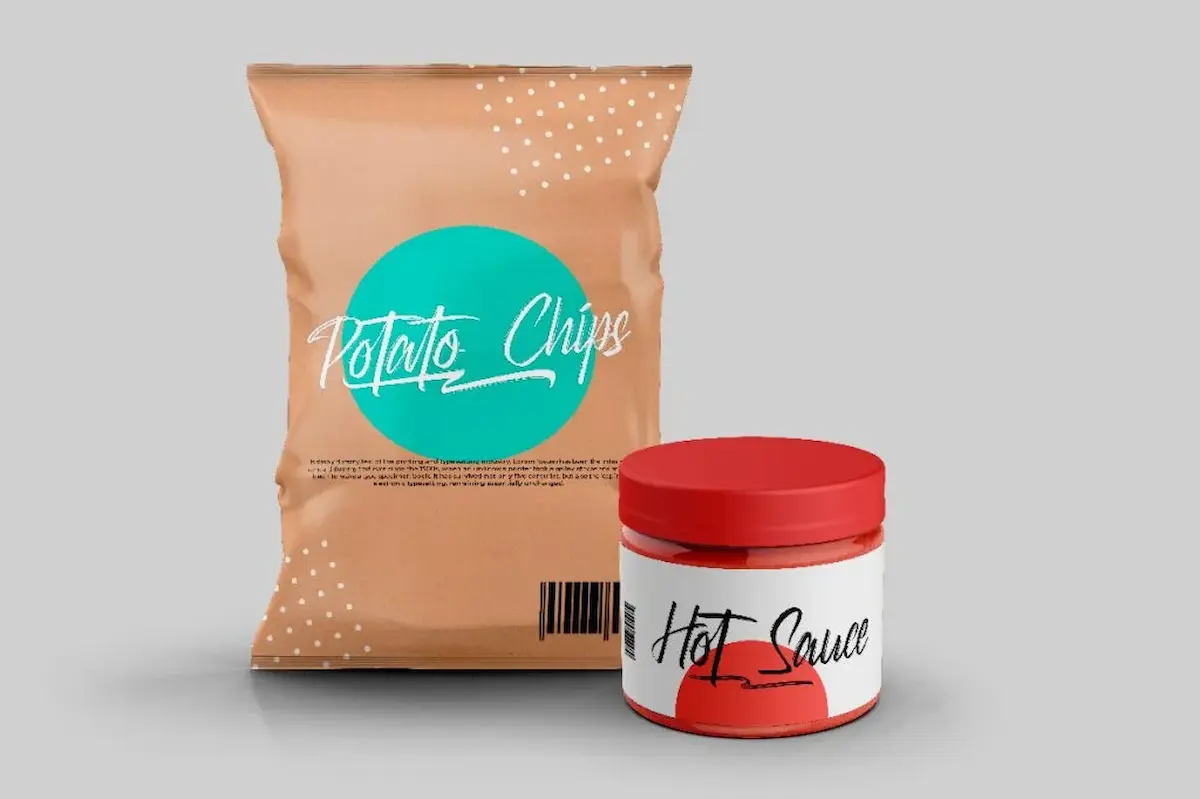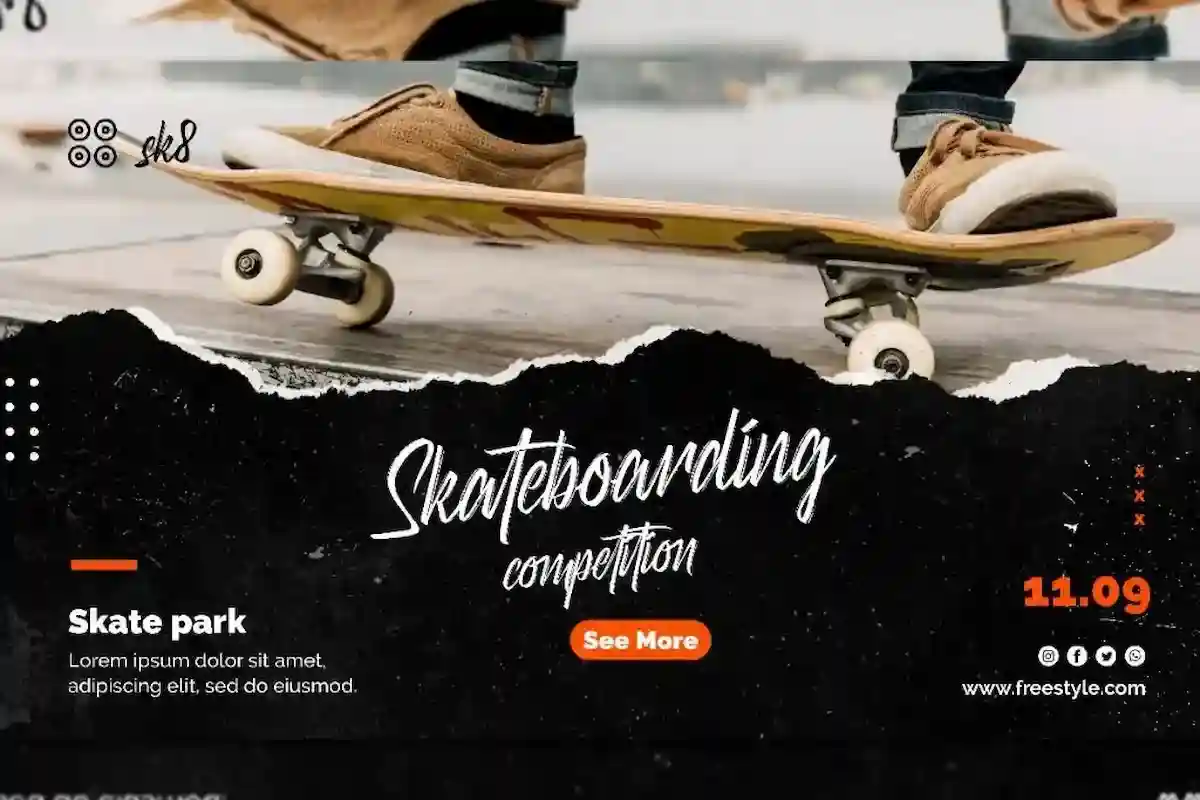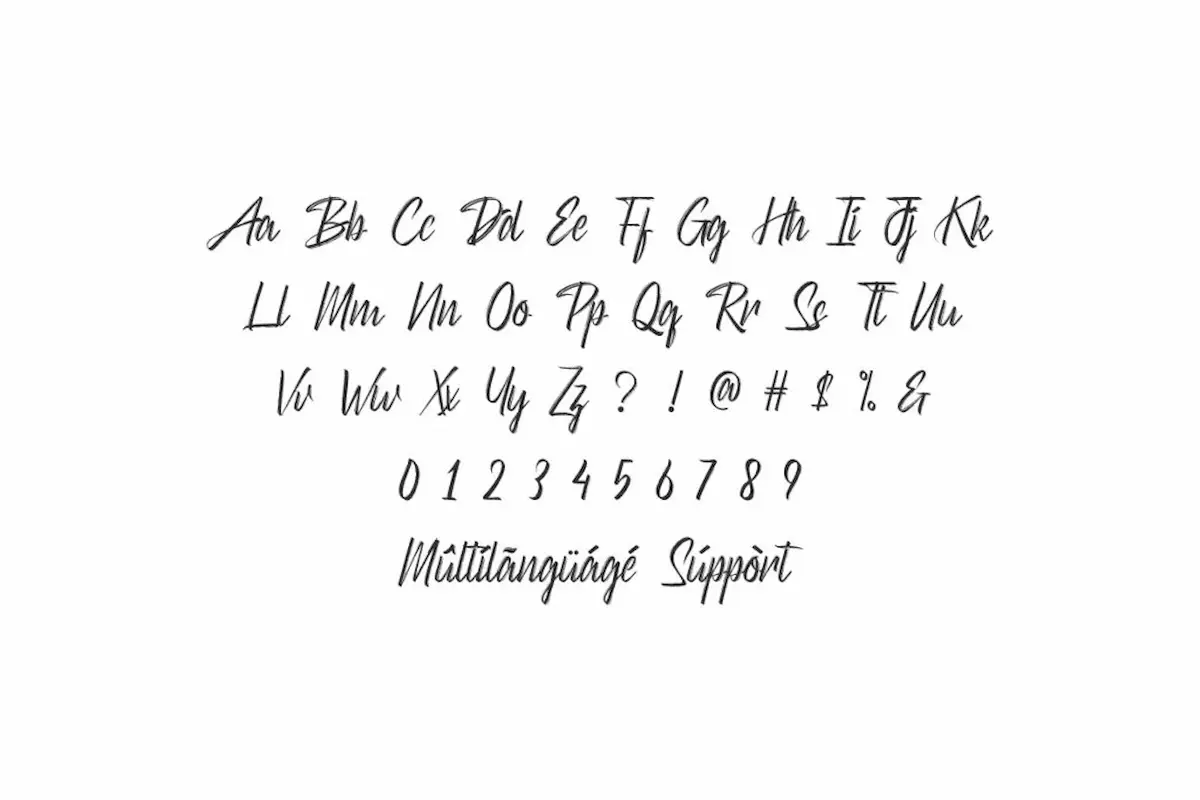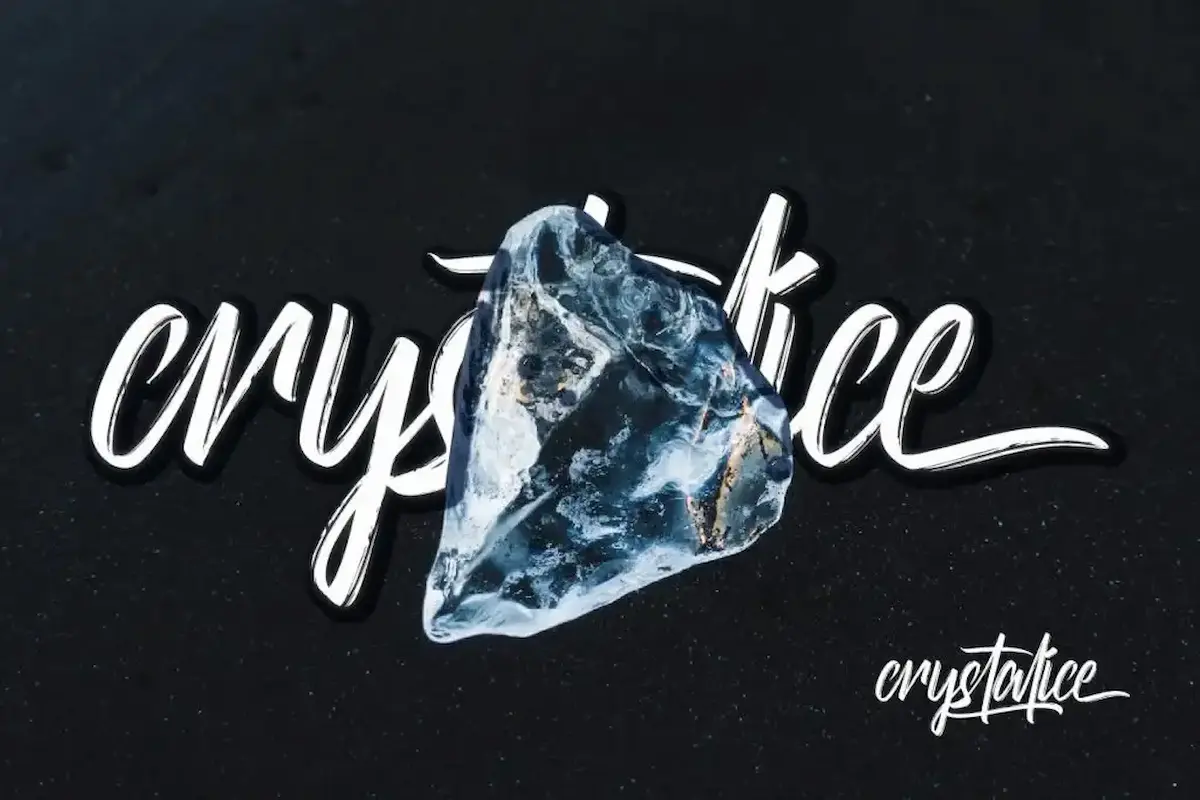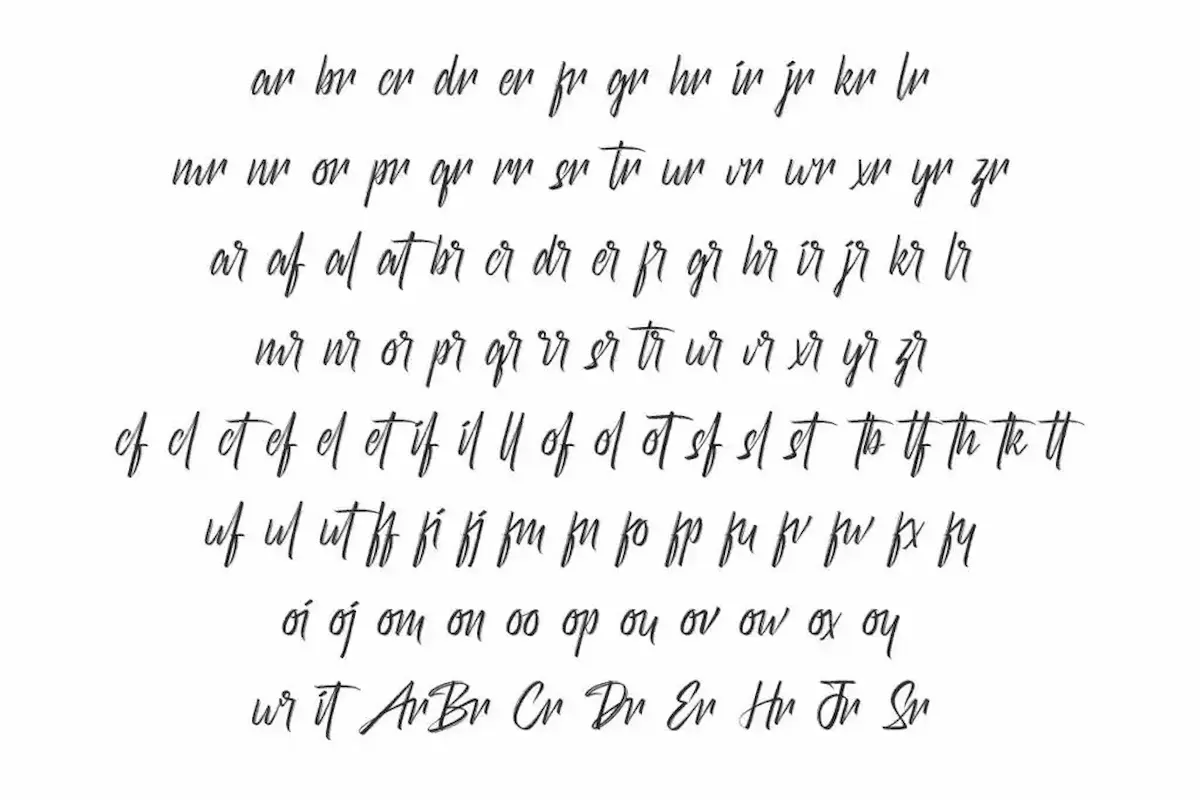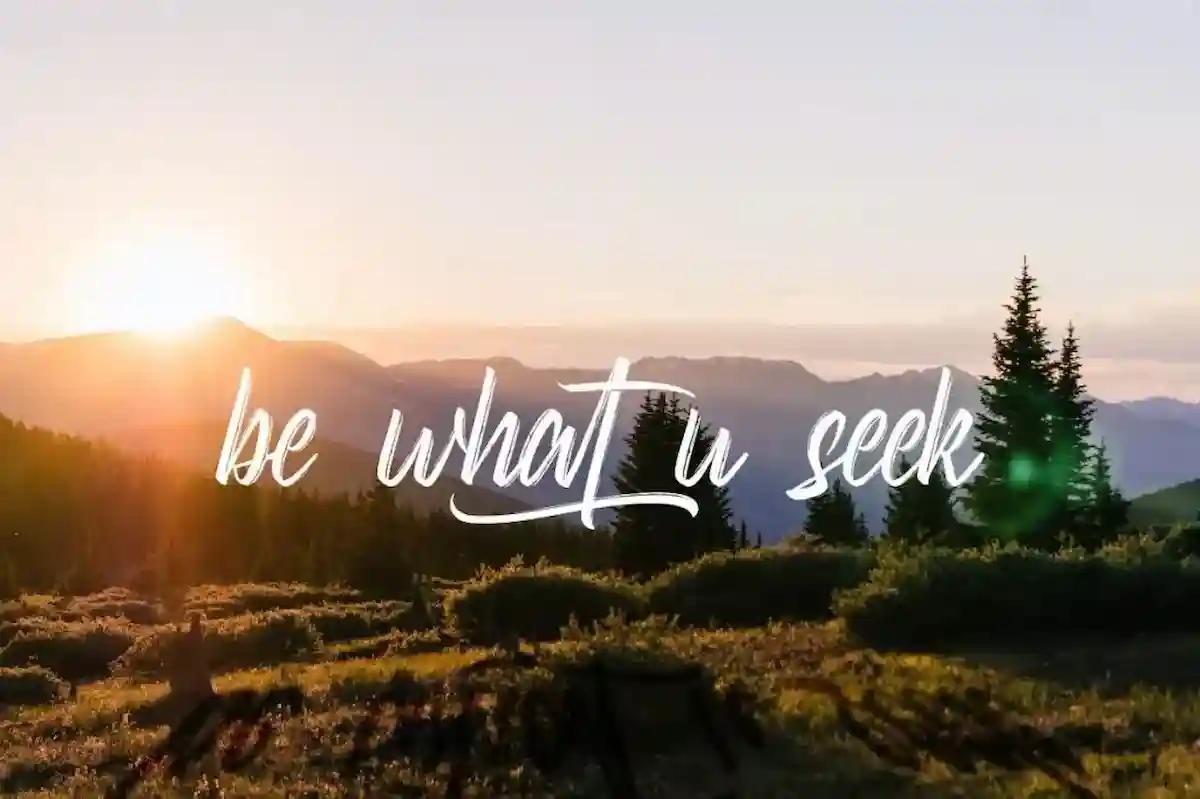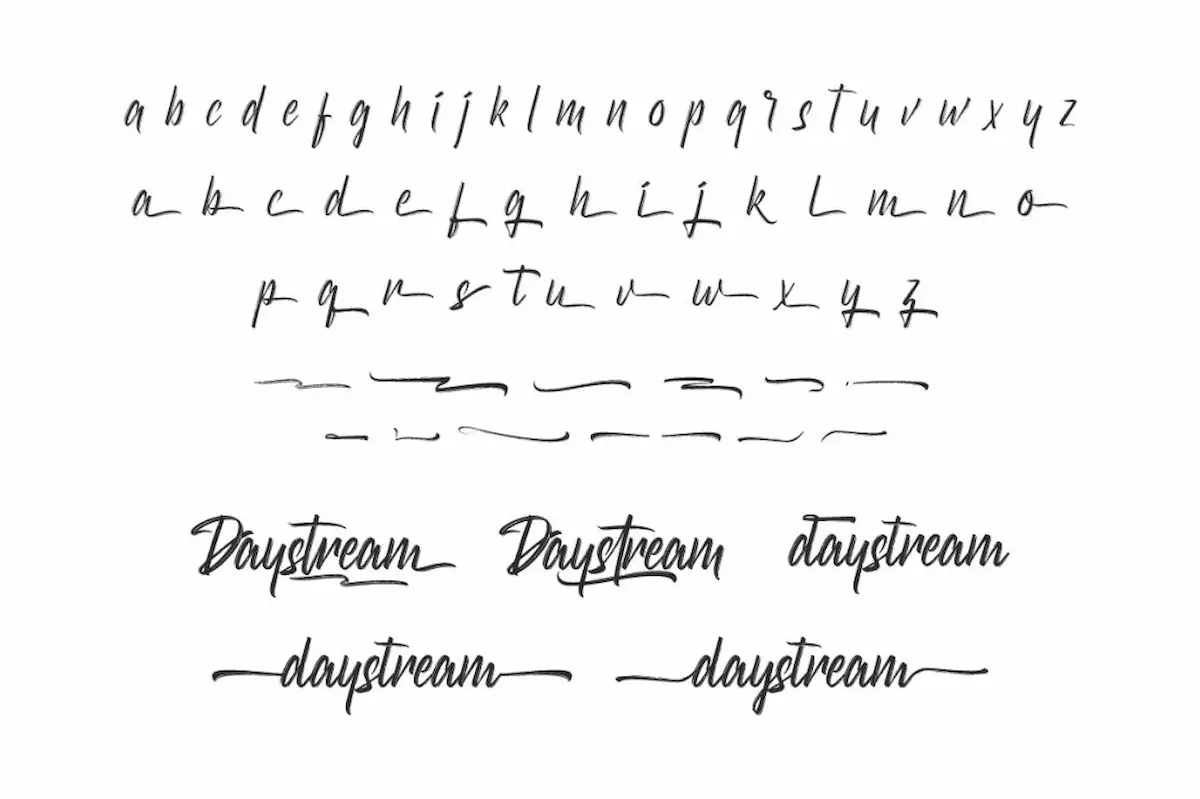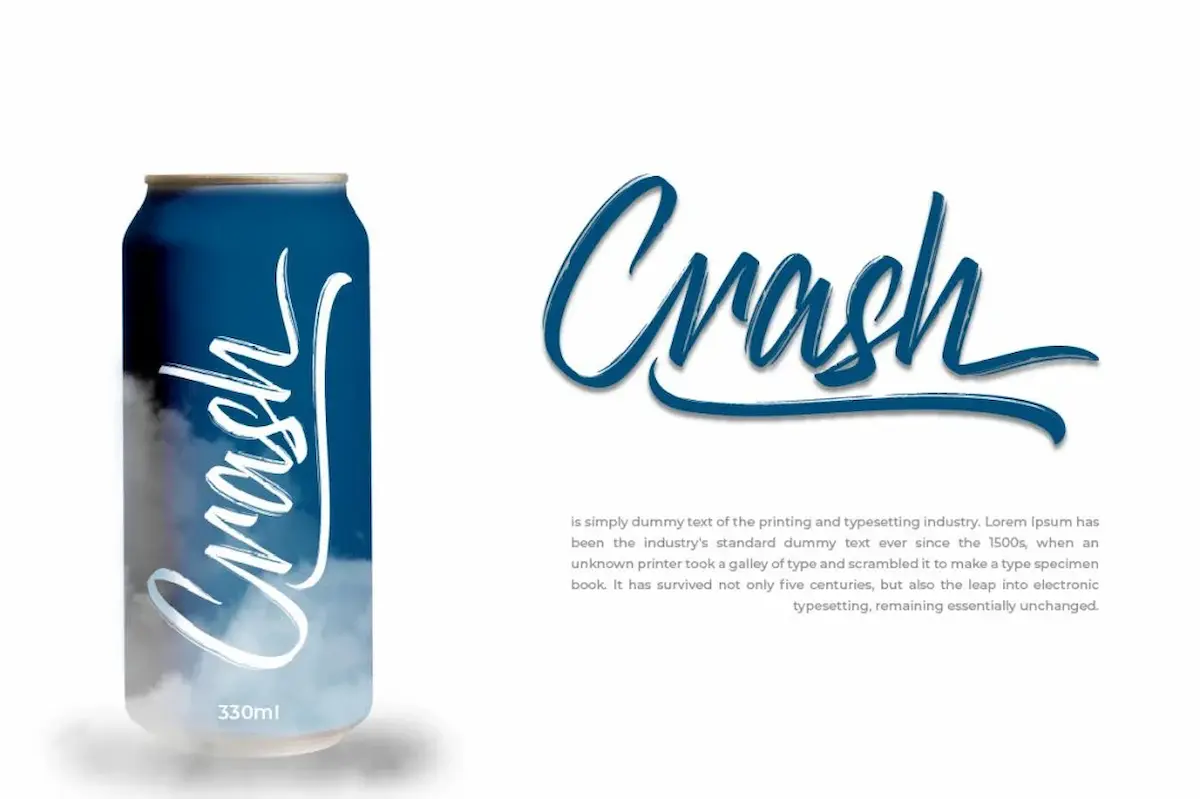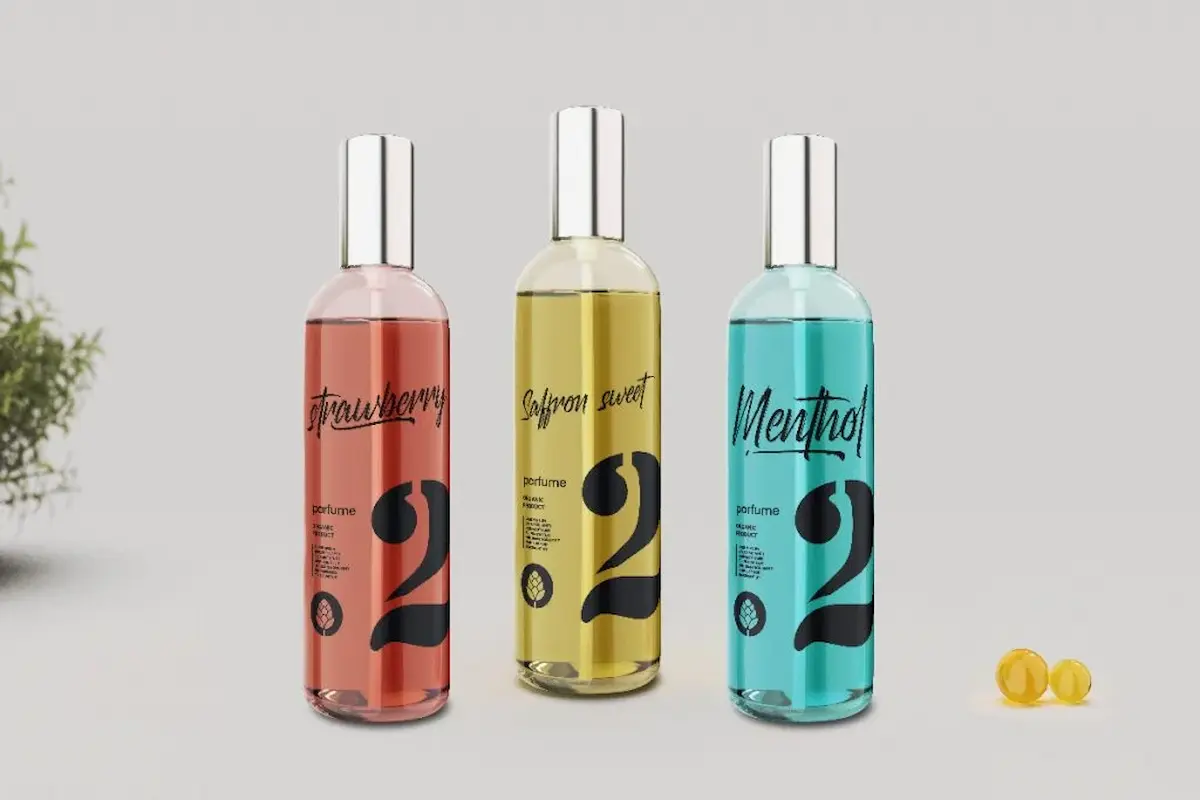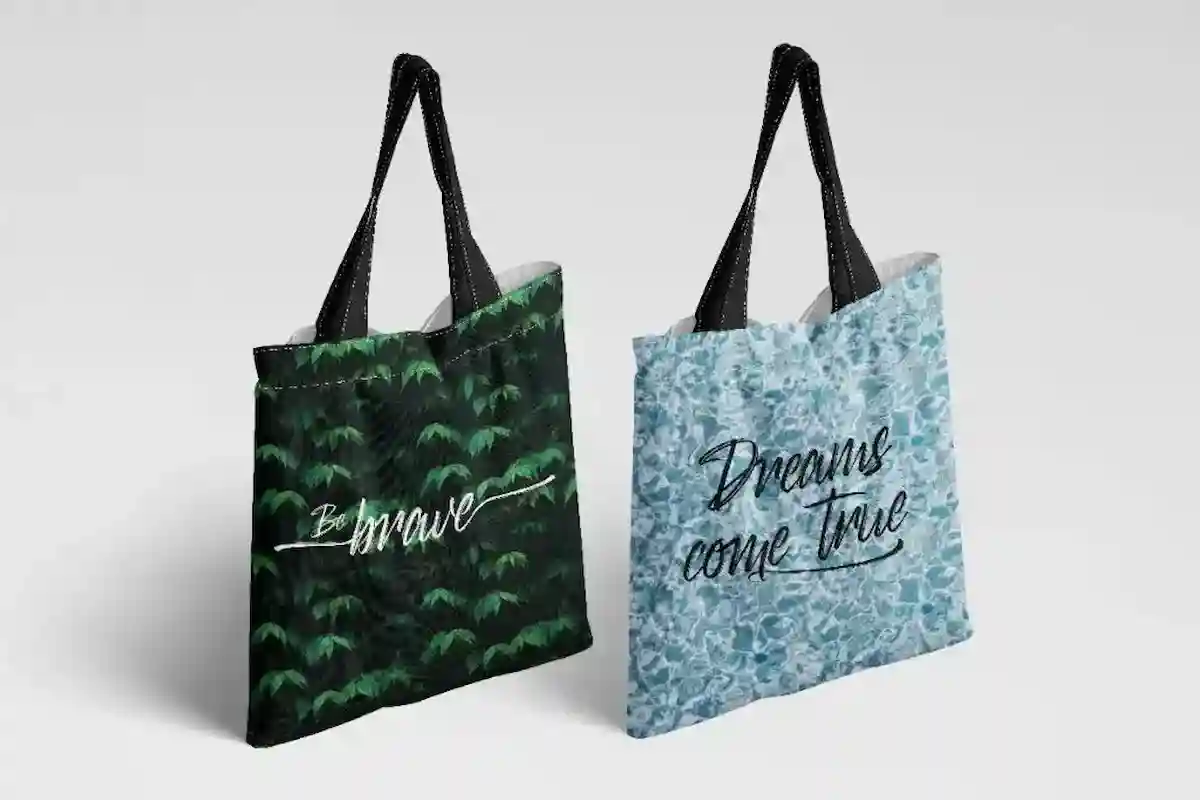
Daystream – Handcrafted Textured Brush Font by NihStudio
Daystream is a powerful textured brush font designed by NihStudio in 2020. This hand lettering font combines expressive strokes and natural brush textures, delivering a bold and artistic aesthetic. Daystream is perfect for creative professionals looking for a versatile branding font or eye-catching display typeface.
This handcrafted brush font is ideal for logos, posters, apparel design, merchandise, advertising, product packaging, and signage. It’s especially suitable for themes like horror, dark art, motorcycles, extreme sports, music events, café branding, and modern promotions.
The Daystream font has a sporty, edgy, and mysterious feel—perfect for gamers, musicians, tattoo artists, and bold businesses. It’s carefully spaced and kerned to ensure professional-quality typography, whether used in large headlines or smaller body text.
Created in our studio in Indonesia, Daystream is a handcrafted font built to bring emotion, attitude, and motion to your designs. Whether you’re working on a personal passion project or a commercial campaign, Daystream adds impact and originality.